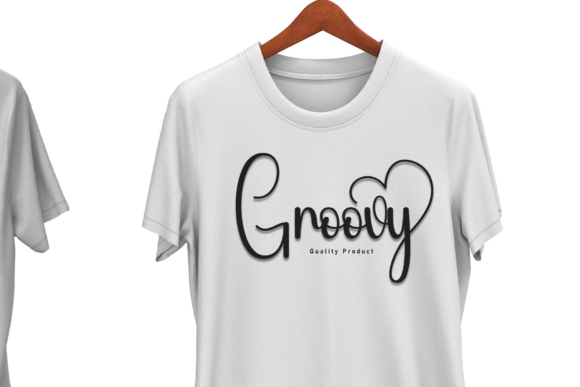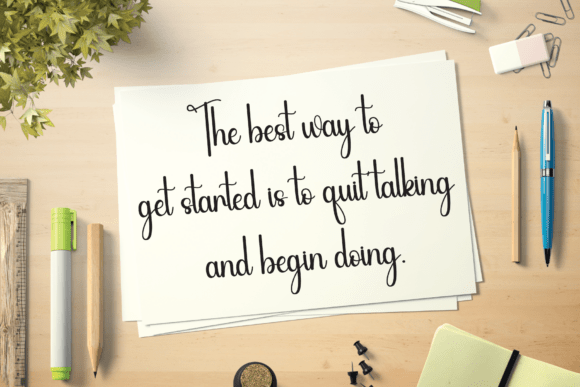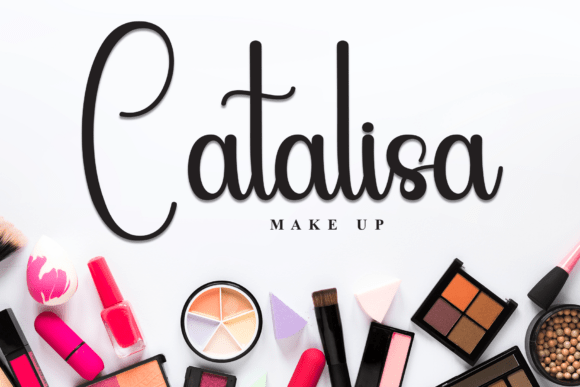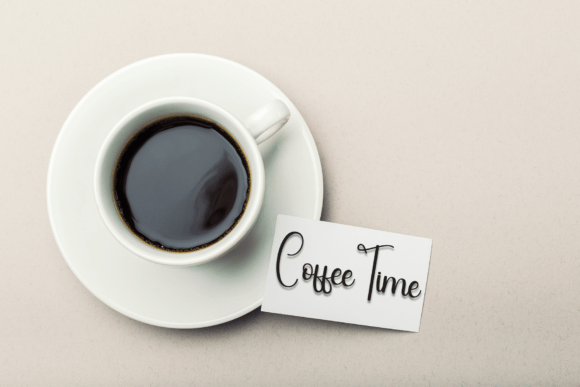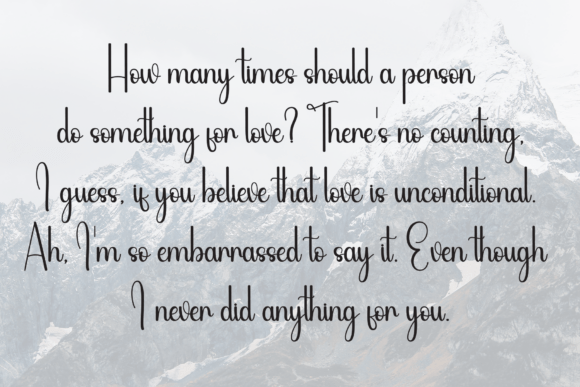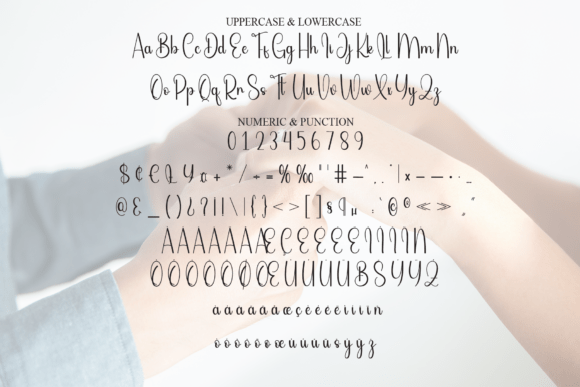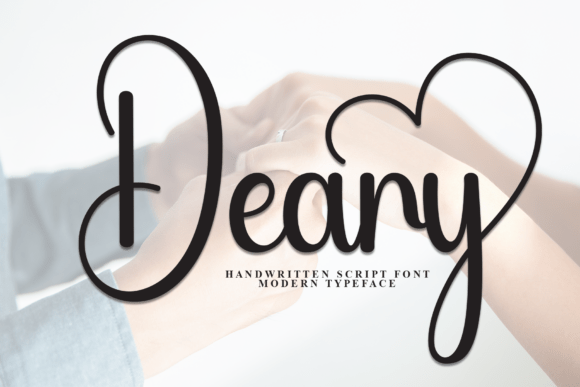
Introducing Deary Font: Elevate Your Designs with Elegance and Fluidity
In the world of typography, few fonts manage to capture the essence of elegance and fluidity as effortlessly as Deary Font. This stylish handwritten script font is a masterpiece of modern design, offering a perfect blend of sophistication, charm, and artistic flair. Whether you’re a designer, crafter, or simply someone who appreciates the beauty of well-crafted typography, Deary Font is sure to leave a lasting impression.
The Characteristics of Deary Font
Deary Font boasts smooth, flowing strokes that create a natural and sophisticated feel, making it an ideal choice for a wide range of design applications. From branding and invitations to creative projects and digital media, this versatile typeface can add a touch of elegance and refinement to any design. The font’s flowing script style is reminiscent of handwritten calligraphy, yet its clean lines and balanced proportions ensure that it remains highly legible, even at smaller sizes.
What Makes Deary Font Stand Out?
So, what sets Deary Font apart from other script fonts on the market? Here are just a few key features that make it a standout choice for designers and crafters:
- Elegant and Fluid Design: Deary Font’s smooth, flowing strokes create a sense of movement and fluidity, making it perfect for designs that require a touch of sophistication and elegance.
- Natural and Sophisticated Feel: The font’s natural, handwritten style gives it a warm and approachable feel, while its balanced proportions and clean lines ensure that it remains highly legible.
- Perfect for Branding and Invitations: Deary Font’s elegant design makes it an ideal choice for branding, invitations, and other high-end design applications where a touch of sophistication is required.
- Versatile and Adaptable: Whether you’re designing a logo, creating a social media graphic, or crafting a beautiful invitation, Deary Font can adapt to any design style or requirement.
Using Deary Font in Your Designs
Deary Font is incredibly easy to use and can be incorporated into a wide range of design projects. Here are just a few ideas to get you started:
- Branding and Logos: Use Deary Font to create a sophisticated and elegant logo that reflects your brand’s values and personality.
- Invitations and Stationery: Add a touch of elegance and refinement to your invitations, greeting cards, and stationery with Deary Font.
- Digital Media: Use Deary Font to create stunning social media graphics, blog headers, and other digital media that require a touch of sophistication.
- Crafting and Scrapbooking: Deary Font is also perfect for crafters and scrapbookers who want to add a personal, artistic touch to their projects.
Tips for Getting the Most Out of Deary Font
To get the most out of Deary Font, here are a few tips to keep in mind:
- Experiment with Different Sizes: Deary Font looks great at a wide range of sizes, from small and delicate to large and bold.
- Play with Color and Texture: Add depth and interest to your designs by experimenting with different colors and textures.
- Combine with Other Fonts: Deary Font pairs beautifully with other fonts, so don’t be afraid to experiment with different combinations.
In conclusion, Deary Font is a truly exceptional typeface that offers a unique blend of elegance, fluidity, and sophistication. Whether you’re a designer, crafter, or simply someone who appreciates the beauty of well-crafted typography, Deary Font is sure to inspire and elevate your designs. With its smooth, flowing strokes, natural and sophisticated feel, and versatile adaptability, this stylish handwritten script font is the perfect choice for anyone looking to add a touch of elegance and refinement to their designs.